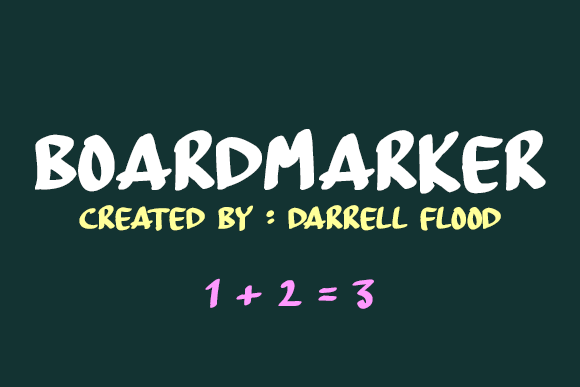
Have you ever been working on a project and suddenly, the perfect idea strikes? The room lights up, and you can envision the entire design unfolding before your eyes. For designers, these moments are what make all the hard work worth it. And, for those looking to add a playful twist to their projects, the right font can be the key to unlocking that magic.
Enter Board Marker Font, a delightful handbrushed font created by Darrell Flood. This charming font is designed to bring a personal, whimsical touch to your designs, making it perfect for branding, advertising, and other creative projects. With its unique, hand-painted feel, Board Marker Font adds a touch of authenticity and warmth to any project, making it a valuable asset for designers looking to stand out from the crowd.
Key Features of Board Marker Font
- Unique Characteristics: The font features a bold, playful, and expressive design, with thick lines and rounded edges, making it perfect for use in educational settings, children’s materials, and creative projects.
Board Marker Font Review
I recently had the chance to play around with the Board Marker Font, and I’m here to share my honest thoughts on it. Overall, I think this font has some great qualities, but also some limitations.
- The font is super easy to read, even at smaller sizes.
- It’s great for headings and titles because of its bold, playful feel.
- The font is highly customizable, which is perfect for designers who like to get creative.
- The font can feel a bit too casual for some types of content, like formal reports or academic papers.
- The font’s boldness can be overwhelming if used too much, so be careful with font size and color combinations.
Overall, I think the Board Marker Font is a solid choice for designers who need a fun, playful font for projects like posters, social media graphics, or even children’s books. However, it might not be the best fit for more formal or professional content.
Use the Board Marker font for headings and titles to add a playful touch to your designs.
Combine the Board Marker font with other fonts to create a unique and eye-catching visual identity.
Use the Board Marker font for:
- Children’s educational materials
- Playful advertising campaigns
- Event signage and banners
Chalkboard
Chalkboard is a distressed, handwritten font that mimics the look of a traditional chalkboard. It’s ideal for creating a casual, vintage feel in designs. When to use: Educational materials, advertisements, and promotional materials that require a playful, nostalgic tone.
Compared to Board Marker Font, Chalkboard has a more distressed, worn look that adds to its nostalgic appeal. While Board Marker Font is more straightforward and clean, Chalkboard has a more organic feel.
Great Vibes is a handwritten, brush script font that’s perfect for adding a touch of elegance and sophistication to designs. When to use: Wedding invitations, luxury brand materials, and high-end advertisements that require a refined, premium feel.
Compared to Board Marker Font, Great Vibes has a more polished and refined look that’s ideal for upscale designs. While Board Marker Font is more casual and playful, Great Vibes is more sophisticated and elegant.
Playfair Display is an elegant, high-end font that’s perfect for adding a touch of luxury and sophistication to designs. When to use: High-end advertisements, luxury brand materials, and wedding invitations that require a refined, premium feel.
Compared to Board Marker Font, Playfair Display has a more elegant and refined look that’s ideal for upscale designs. While Board Marker Font is more casual and playful, Playfair Display is more sophisticated and elegant.